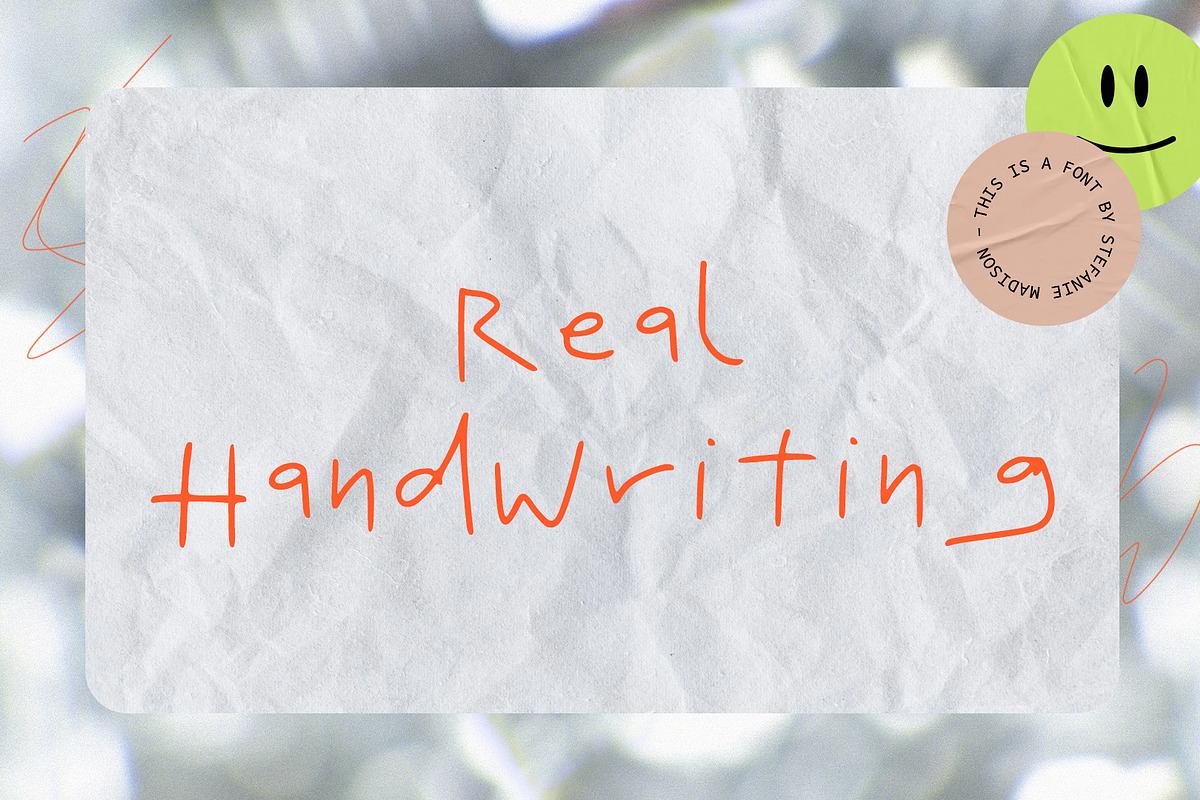
Real Handwriting | Font Free Download
Real Handwriting | Font Free Download is a natural, authentic handwritten typeface that captures the beauty and imperfections of real handwriting. Featuring organic strokes and a personal touch, this font is perfect for creating invitations, branding, greeting cards, social media posts, and any project that needs a genuine, human feel. Its casual, flowing style makes it ideal for designs that require a warm, personal vibe.
Using the Real Handwriting | Font Free Download adds a charming, realistic handwritten look to your typography. Whether you're working on personalized stationery, creating custom logos, or crafting heartfelt messages, this font brings an intimate, authentic feel to your work.